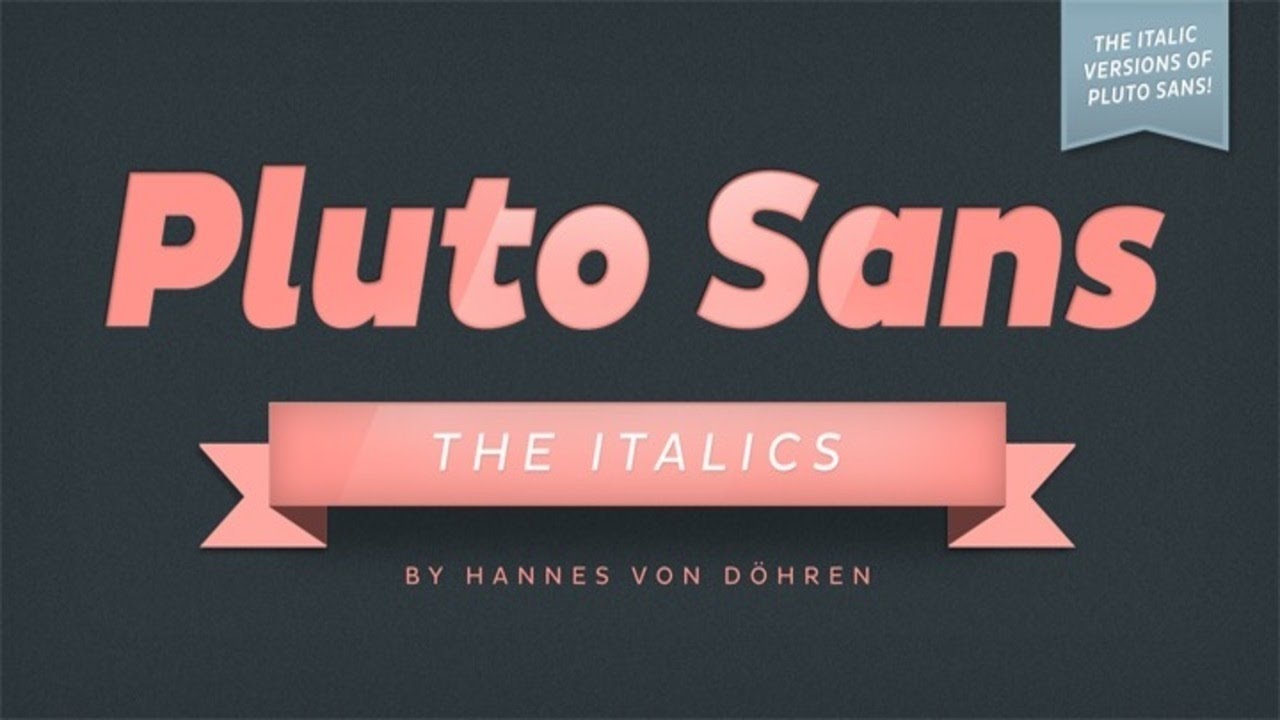
Pluto Font Dafont Pluto font family is a versatile geometric sans serif typeface. known for its friendly and informal appearance, pluto is well suited for both display and longer text applications, making it ideal for use in retail, cosmetics, food, and hospitality sectors. The fonts are informal and friendly at first sight and lend themselves to display settings, however the straight and upright architecture of pluto also makes it perfect for longer copy. Download and install free pluto sans font. this font is from sans serif category and exclusively available at dafont free. Tattoo artists prefer this font to enhance the quality of their designs, and magazines and blog writers use this font family. you can download it for free from our website.
Pluto Font Dafont Download and install free pluto sans font. this font is from sans serif category and exclusively available at dafont free. Tattoo artists prefer this font to enhance the quality of their designs, and magazines and blog writers use this font family. you can download it for free from our website. This font is perfect for those looking to add a touch of fun and refinement to their designs. as you explore the image of pluto, you can’t help but notice its versatility. it effortlessly combines two themes – playfulness and sophistication – into one cohesive and eye catching font. Download and generate image with the pluto font, free for personal use. perfect for sans serif fonts designs that can be used on any device such as andriod, pc, mac, linux. Read a practical, first hand review of pluto font by designer ayan farabi. see how this rounded sans serif performs in branding, ui, and digital layouts, with clear notes on strengths, limits, and licensing. Download free pluto font, view its character map and generate text based images or logos with pluto font online.
Junes Pluto Font Dafont This font is perfect for those looking to add a touch of fun and refinement to their designs. as you explore the image of pluto, you can’t help but notice its versatility. it effortlessly combines two themes – playfulness and sophistication – into one cohesive and eye catching font. Download and generate image with the pluto font, free for personal use. perfect for sans serif fonts designs that can be used on any device such as andriod, pc, mac, linux. Read a practical, first hand review of pluto font by designer ayan farabi. see how this rounded sans serif performs in branding, ui, and digital layouts, with clear notes on strengths, limits, and licensing. Download free pluto font, view its character map and generate text based images or logos with pluto font online.
Pluto Revolution Font Dafont Read a practical, first hand review of pluto font by designer ayan farabi. see how this rounded sans serif performs in branding, ui, and digital layouts, with clear notes on strengths, limits, and licensing. Download free pluto font, view its character map and generate text based images or logos with pluto font online.